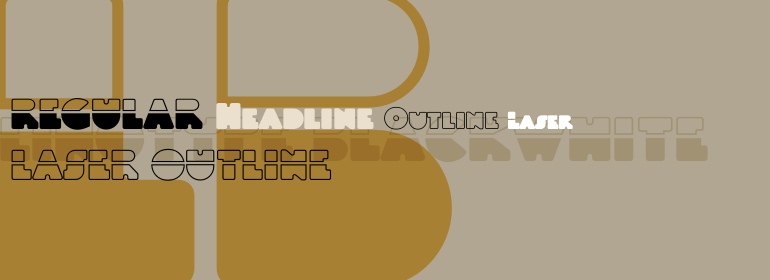
BlackWhite Font
BlackWhite Font is perfect for minimalist design studios, contemporary art galleries, monochrome photography branding, modern architecture firms, high-contrast fashion labels, editorial magazine layouts, stark industrial marketing, and sophisticated graphic design portfolios. This striking typeface excels in applications where bold contrast and minimalist elegance are essential for creating powerful and memorable brand experiences that celebrate the purity of black and white design principles.
What makes BlackWhite Font truly exciting is its masterful embodiment of pure contrast and minimalist sophistication that captures the timeless power of monochromatic design and the dramatic beauty of stark visual opposition. The font features bold, high-contrast letterforms with clean edges and geometric precision that mirror the fundamental principles of black and white design and the sophisticated restraint of minimalist aesthetics. Its dramatic personality and contrasting character create an immediate sense of visual impact and design confidence that resonates with audiences seeking authentic minimalist experiences and sophisticated visual solutions. The typeface's monochromatic appeal and design purity make it perfect for brands wanting to convey clarity, sophistication, and connection to the enduring power of contrast and minimalist design philosophy.
The BlackWhite Font family includes regular and bold weights with high-contrast variations, complemented by geometric alternates and minimalist-inspired decorative elements. The font offers comprehensive character sets with design symbols, contrast indicators, and monochromatic styling details that enhance its stark aesthetic. Additional graphic elements including geometric shapes, contrast patterns, minimalist borders, and design motifs provide designers with complete branding tools rooted in black and white design traditions and minimalist philosophy.